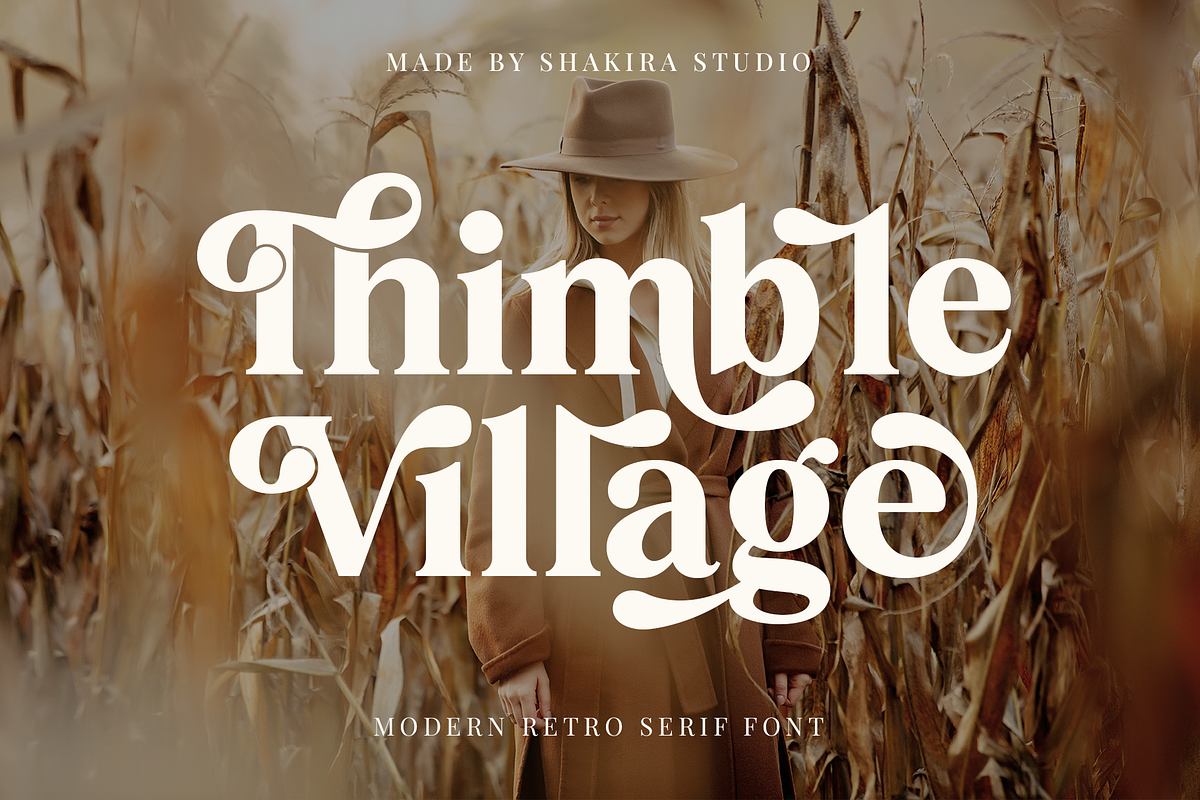
You must purchase this font for commercial use. However, you can download Thimble Village – Serif Display Font Free Download for testing purposes. Thimble Village is a charming and stylish serif display font that combines bold, distinctive letterforms with a vintage flair. Its unique design makes it perfect for headlines, posters, logos, branding, packaging, and any design that aims to stand out with a sophisticated, old-world charm.
With its high contrast, strong serifs, and elegant curves, Thimble Village adds personality and character to your projects, making it ideal for both modern and retro-inspired designs. Whether you're creating a cozy brand identity or a vintage-inspired editorial spread, Thimble Village – Serif Display Font Free Download gives you the opportunity to test its bold, eye-catching aesthetic.